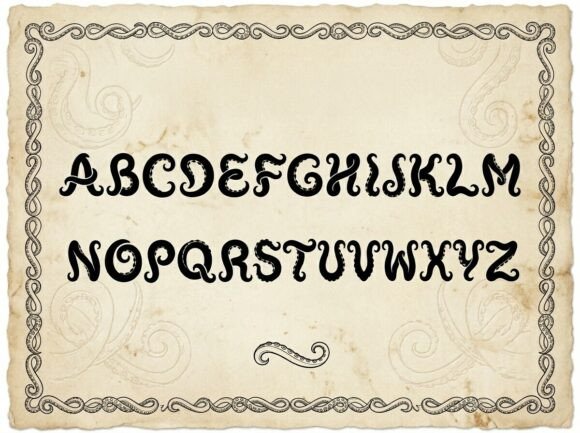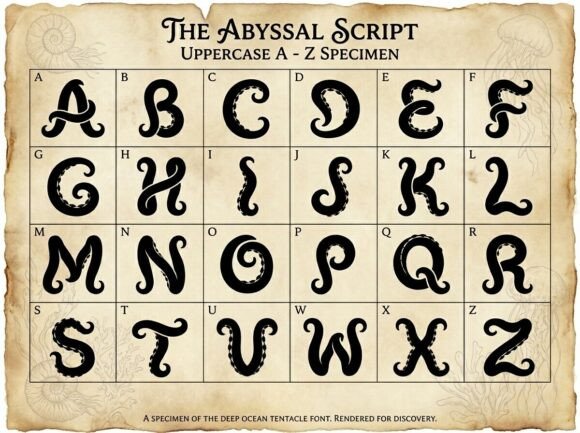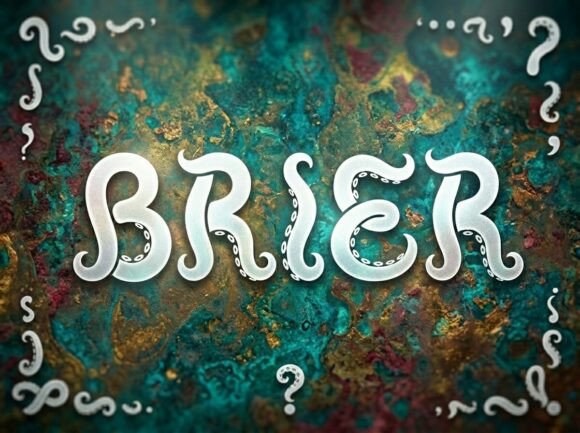
Introducing Brier Font: The Ultimate Decorative Display Font
Are you tired of using the same old fonts for your creative projects? Do you want to make a statement with your designs and stand out from the crowd? Look no further than Brier Font, a stunning decorative display font that’s designed to be the center of attention. With its unique artistic elements and strong visual personality, this font is perfect for creators who want to break away from the ordinary and add a touch of elegance to their work.
What Makes Brier Font Special?
Brier Font is a versatile decorative font that’s specifically designed for high-impact headlines, logos, and decorative initials. Its unique artistic elements and strong visual personality make it perfect for a variety of creative projects, from bold headlines and artistic logos to creative packaging and more. Whether you’re a designer, craftsperson, or DIY enthusiast, Brier Font is the perfect choice for anyone looking to add a touch of sophistication to their work.
Key Features of Brier Font
- Unique Artistic Elements: Brier Font features unique artistic elements that set it apart from other fonts. Its decorative strokes, swashes, and flourishes add a touch of elegance to any design.
- Strong Visual Personality: This font has a strong visual personality that’s sure to grab attention. Its bold and eye-catching design makes it perfect for headlines, logos, and other high-impact applications.
- Versatile: Brier Font is versatile enough for use in a variety of creative projects, from bold headlines and artistic logos to creative packaging and more.
- Professional and Polished Finish: Despite its decorative nature, Brier Font maintains a professional and polished finish that’s perfect for use in high-end designs.
IMPORTANT NOTE BEFORE PURCHASE: Brier Font is an ALL-CAPS (Uppercase Only) display typeface. It does not include lowercase letters. It is specifically designed for high-impact headlines, logos, and decorative initials where every letter is a work of art.
Why Choose Brier Font?
So why choose Brier Font over other decorative fonts on the market? Here are just a few reasons:
- Unique Design: Brier Font features a unique design that’s sure to stand out from the crowd.
- Versatility: Brier Font is versatile enough for use in a variety of creative projects, from bold headlines and artistic logos to creative packaging and more.
- Use it for Headlines: Brier Font is perfect for use in headlines, titles, and other high-impact applications.
- Add Swashes and Flourishes: Take advantage of Brier Font’s decorative swashes and flourishes to add a touch of elegance to your designs.
- Experiment with Colors: Brier Font looks great in a variety of colors, so don’t be afraid to experiment and find the perfect color for your design.